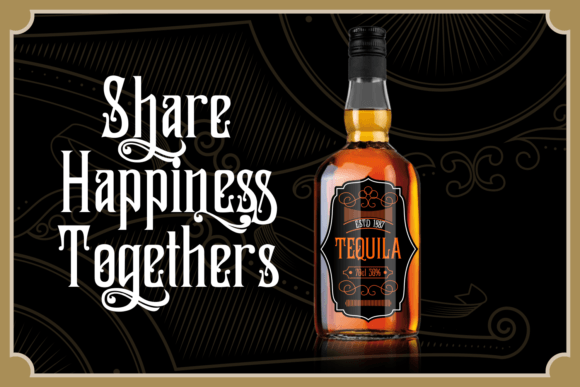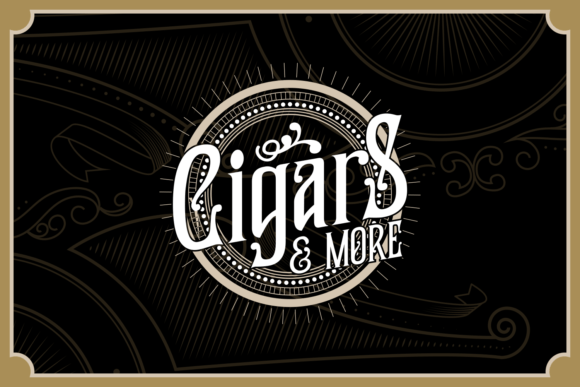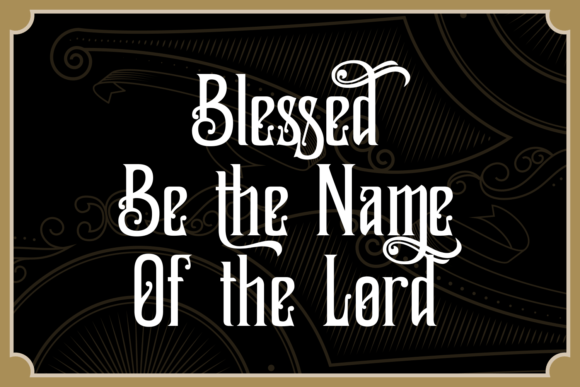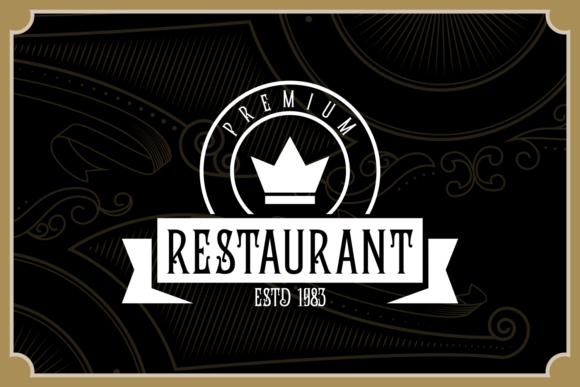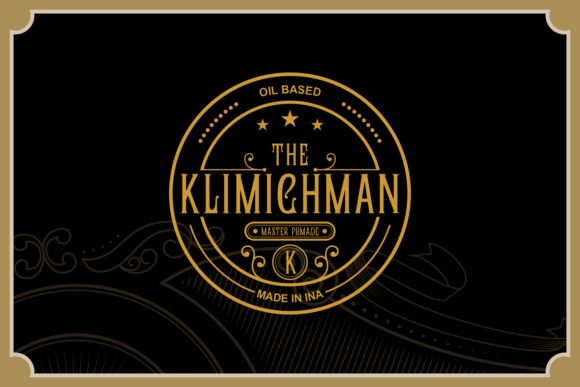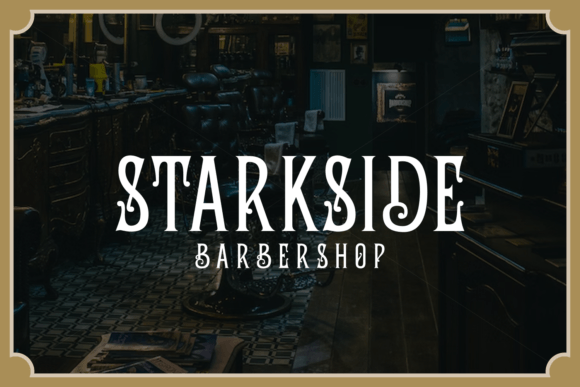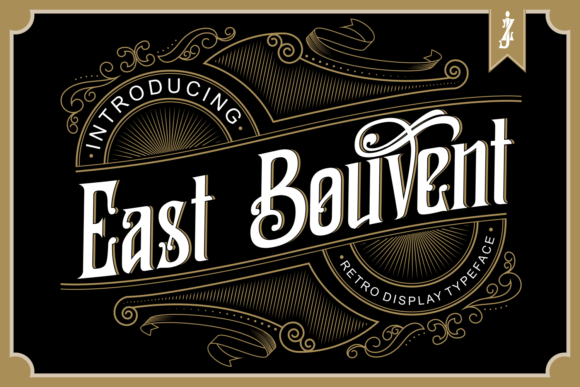
Discover the Elegance of East Bouvent Font: A Retro Luxury Lettering Experience
In the world of typography, few fonts manage to evoke the essence of luxury, nostalgia, and elegance as effectively as the East Bouvent font. This stunning typeface is inspired by references to old luxury lettering, retro and vintage illustrations, and the intricate art of Victorian calligraphy. The result is a retro style that is not only visually striking but also incredibly versatile, making it suitable for a wide range of applications including product labels, advertising, interiors, and much more.
The Inspiration Behind East Bouvent
East Bouvent’s design roots are deeply embedded in the rich history of luxury lettering and the opulent aesthetics of the Victorian era. This period, known for its extravagant and ornate style, has been a significant inspiration for designers and artists across various mediums. By tapping into this heritage, East Bouvent brings forth a font that embodies sophistication, elegance, and a touch of nostalgia.
The font’s creators aimed to capture the essence of vintage luxury, making it an ideal choice for projects that require a touch of classic elegance. Whether it’s for branding, packaging, or decorative purposes, East Bouvent offers a unique and distinctive look that sets it apart from more contemporary typefaces.
Characteristics of East Bouvent Font
East Bouvent is characterized by its intricate details, flowing lines, and a sense of grandeur that is reminiscent of luxury lettering from bygone eras. Some of its key features include:
- Intricate Detailing: The font boasts intricate designs and patterns that add depth and character to any text.
- Victorian Influence: The clear influence of Victorian calligraphy can be seen in the font’s ornate and decorative strokes.
- Retro Charm: East Bouvent exudes a retro charm that is perfect for creating visually appealing and distinctive designs.
- Versatility: Its elegant and sophisticated look makes it suitable for a variety of applications, from product labels to advertising and interior design.
Applications of East Bouvent Font
The versatility of East Bouvent makes it an excellent choice for a multitude of design projects. Here are some of the areas where this font truly shines:
- Product Labels: Add a touch of luxury and elegance to your product labels, making them stand out on store shelves.
- Advertising: Use East Bouvent in your advertising materials to convey a sense of sophistication and high-end quality.
- Interior Design: Incorporate this font into your interior design projects, such as signage, menus, and branding for restaurants, cafes, and boutiques.
- Packaging: Elevate your packaging design with a font that exudes luxury and class.
Why Choose East Bouvent?
In a world where design trends are constantly evolving, East Bouvent offers a refreshing blend of nostalgia and luxury. Here are a few reasons why designers and crafters should consider adding East Bouvent to their toolkit:
- Unique Aesthetic: East Bouvent provides a unique aesthetic that can help your designs stand out in a crowded marketplace.
- High Versatility: Its adaptability across various mediums and applications makes it a valuable asset for any designer.
- Elegance and Sophistication: The font’s elegant and sophisticated look can elevate any design project, adding a touch of luxury and refinement.
In conclusion, East Bouvent font is a remarkable typeface that brings together the best of luxury lettering, retro illustrations, and Victorian calligraphy. Its unique blend of elegance, sophistication, and versatility makes it an excellent choice for designers and crafters looking to add a touch of class and nostalgia to their projects. Whether you’re working on product labels, advertising, interiors, or any other design venture, East Bouvent is sure to make a lasting impression.